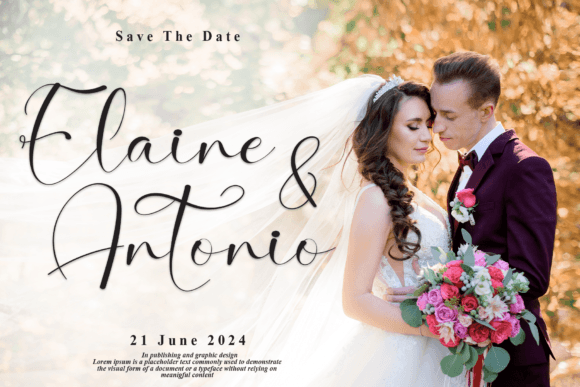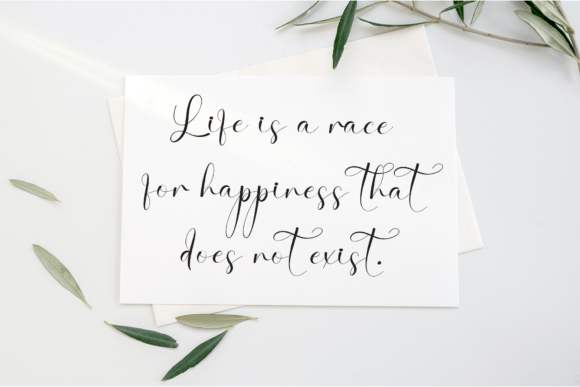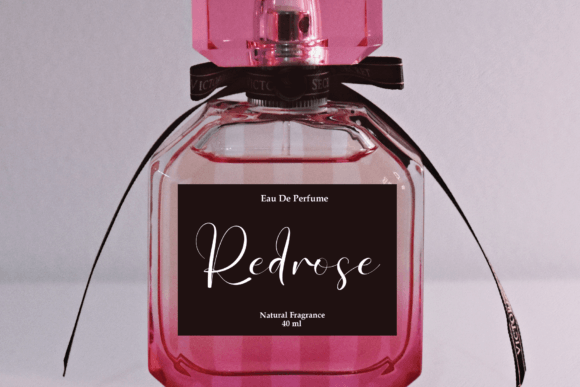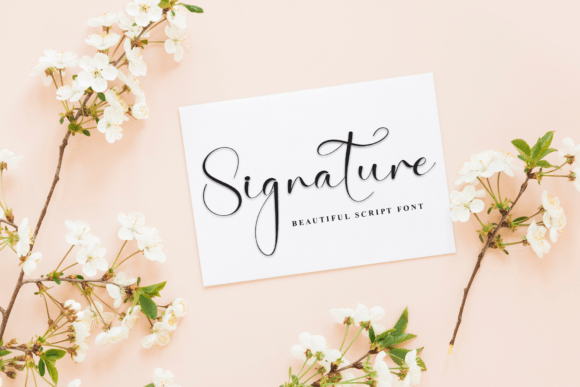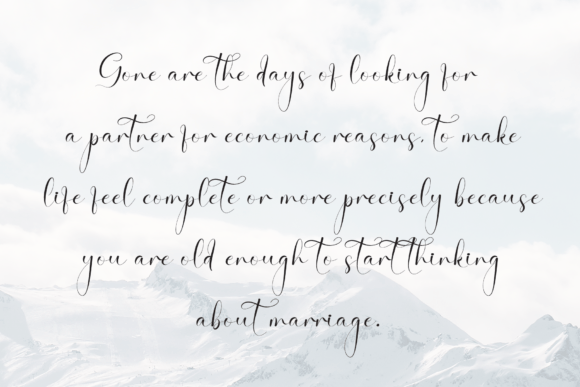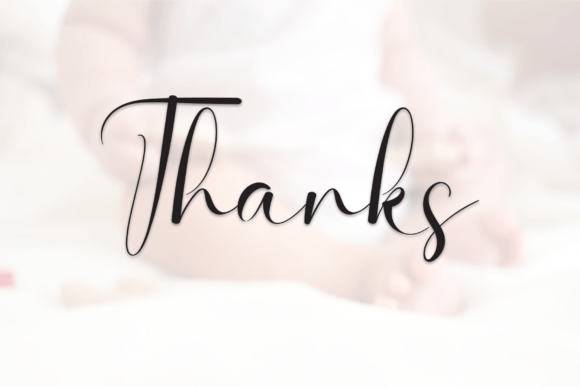
Handwritten Elegance: Unleashing the Beauty of Baby Script Font
There’s something magical about holding a beautifully designed wedding invitation in your hands, feeling the weight of the paper and the touch of a handwritten message. It’s a moment when the ordinary becomes extraordinary, and the beauty of a well-crafted design takes center stage. For designers, this is where the Baby Script Font comes in – a stylish and elegant script font that adds a touch of whimsy and sophistication to any design.
Whether you’re creating a wedding invitation, a thank you card, or a business logo, the Baby Script Font is the perfect choice. Its versatility and timeless elegance make it a valuable asset for any designer looking to add a handwritten touch to their work. With its flowing lines and delicate curves, this font is sure to captivate your audience and leave a lasting impression.
Baby Script Font Key Features
- Font Style: A playful, cursive script font with a soft and gentle touch, perfect for baby-related designs, invitations, and greeting cards.
- Unique Characteristics: Features a unique, hand-drawn feel with subtle flourishes and connections between letters, adding a touch of whimsy and personality to any design.
Baby Script Font Review
Overall, I think Baby Script Font is a cute and playful font that can add a personal touch to any project. ✨ I particularly enjoy its whimsical feel and the way it can evoke a sense of nostalgia and warmth.
- ✨ Unique and creative: Baby Script Font has a distinct look that sets it apart from other fonts. It’s perfect for designers who want to add a bit of personality to their work.
- ✨ Versatile: This font can be used for a variety of projects, from wedding invitations to children’s book covers.
- ✨ Easy to read: Despite its scripty feel, Baby Script Font is surprisingly easy to read, making it a great choice for body text.
- ⚠️ Limited legibility: While Baby Script Font is easy to read in general, it may not be the best choice for long blocks of text or complex layouts.
- ⚠️ Not ideal for headlines: Due to its scripty nature, Baby Script Font may not be the best choice for headlines or titles, as it can be difficult to read in small sizes.
Overall, I think Baby Script Font is a great addition to any designer’s toolkit. While it may have some limitations, its unique look and versatility make it a great choice for projects that require a bit of whimsy and personality.
Common use cases for the Baby Script Font include:
1. Creating cute and playful invitations.
2. Designing children’s book covers.
3. Adding a whimsical touch to social media graphics.
4. Creating custom party decorations.
Remember to experiment with different font combinations and layouts to achieve the desired effect.
Alternatives to Baby Script Font
Curlz
Curlz is a playful, handwritten font with a whimsical touch. It’s ideal for use in titles, headings, and other design elements where a sense of fun and personality is needed. Compared to Baby Script Font, Curlz has a more dramatic flair and is better suited for bold statements.
Lobster is a script font with a modern, elegant feel. It’s great for use in headings, titles, and other design elements where a sense of sophistication is needed. Unlike Baby Script Font, Lobster has a more refined and polished look, making it suitable for high-end designs.
Great Vibes is a script font with a relaxed, casual feel. It’s perfect for use in titles, headings, and other design elements where a sense of friendliness and approachability is needed. Compared to Baby Script Font, Great Vibes has a more laid-back and easy-going vibe, making it suitable for everyday designs.